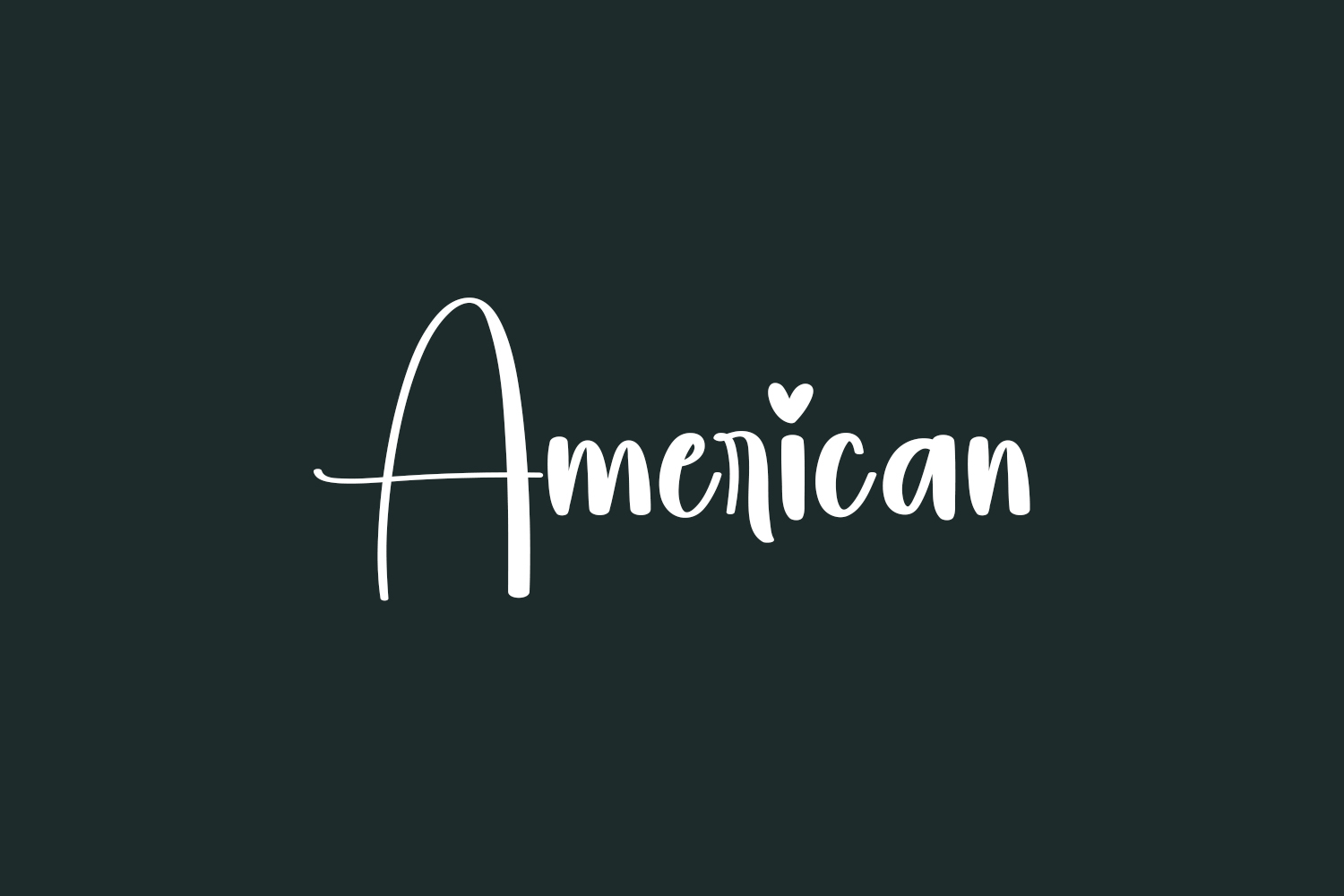
Introducing American Free Font, a charming and endearing handwritten script font. With its gentle and sweet demeanor, this font is a perfect choice for various design concepts. Whether it’s for cards, invitations, or any creative project, American will gracefully infuse a sense of joy and romance, creating a truly delightful atmosphere. American Free Font is free for personal use only. Please purchase the full version for commercial use.
Designed by Scratchones